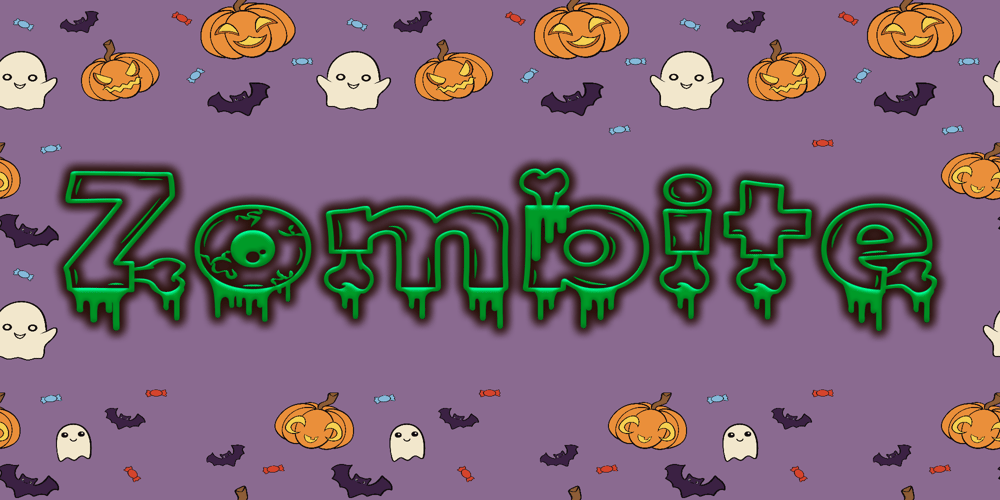
Zombite Font Family was designed by Sam Rotthier and published by Little Red Studio. Zombite contains 1 styles and family package options. Zombite is a fun and whimsical display font. Quirky and mysterious, this font is perfect for all your Halloween-related projects.